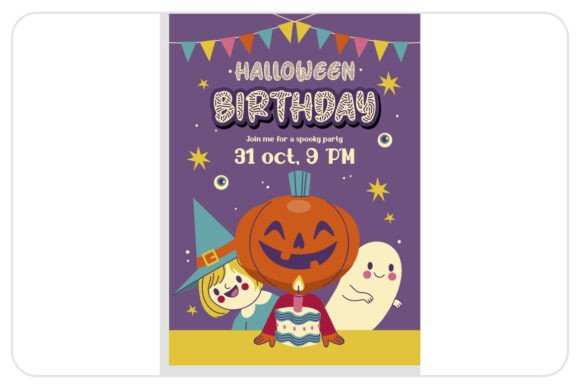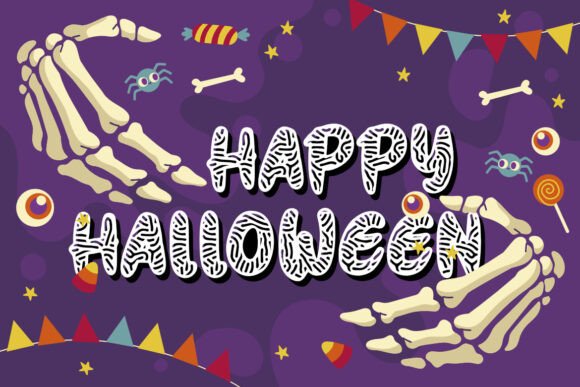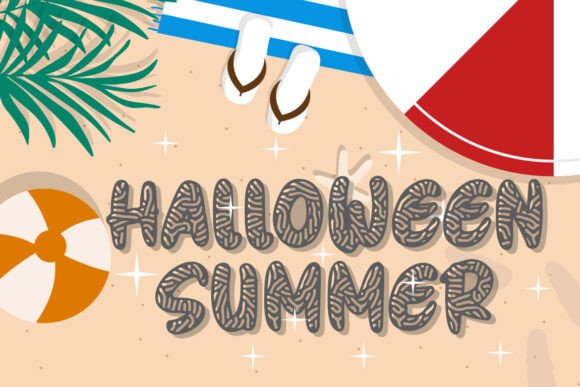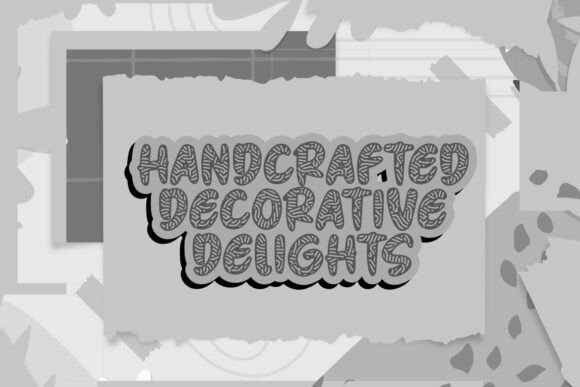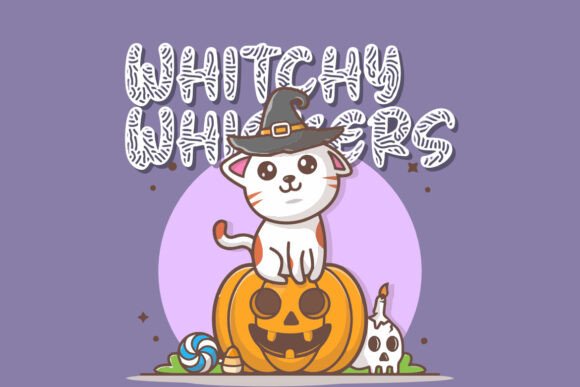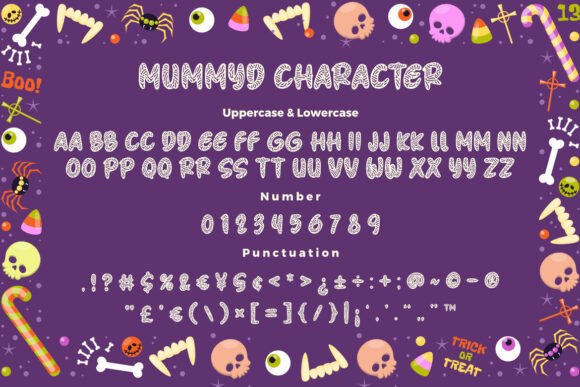
Introduction to Mummyd Font
Imagine you’re brainstorming ideas for a new creative project, and the perfect font is just out of reach. The words “unique” and “eye-catching” are floating in your mind, but you can’t quite put your finger on the perfect combination. That’s when you stumble upon the Mummyd Font, a playful and versatile font that can elevate your design to the next level.
With its high premium quality level, the Mummyd Font is a valuable resource for designers who want to add a touch of personality to their work. Whether you’re creating flyers, quotes, posters, banners, or packaging, this font is sure to make your design stand out. Plus, with its transparent background, you can easily customize it to fit your creative vision.
Key Features of Mummyd Font
- Unique, bold, and elegant font style perfect for various design applications.
- Includes a transparent background, allowing for easy customization and layering.
- Supports various font sizes and resolutions, ideal for print and digital designs.
- Designed to be versatile and adaptable, suitable for a wide range of creative projects.
Honest Review: Mummyd Font
I recently came across the Mummyd Font, a high-quality design resource that caught my attention. As a designer, I’m always on the lookout for unique and creative fonts to elevate my projects.
Here are some things that work well with the Mummyd Font:
- ✨ Unique design: The font has a distinct, playful feel that’s perfect for creative projects.
- ✨ High quality: The font is well-designed and looks great on a variety of backgrounds.
- ⚠️ Limited compatibility: I noticed that the font doesn’t work well with transparent backgrounds, which can be a limitation for designers who want to use it for complex designs.
- ⚠️ Limited character set: The font only includes a limited character set, which may not be sufficient for more extensive design projects.
Overall, I think the Mummyd Font is a great addition to any designer’s toolkit, but it’s essential to be aware of its limitations. With a little creativity and planning, this font can be a valuable resource for your next creative project.
Tips for Getting the Most Out of Mummyd Font
To get the most out of the Mummyd Font, experiment with different font sizes, colors, and combinations to create unique and eye-catching designs.
Common Use Cases for Mummyd Font
The Mummyd Font is commonly used in creative projects such as posters, flyers, brochures, and social media graphics. Its transparent background makes it ideal for overlaying text on images.
Comparison to Mummyd Font: While Mummyd Font has a unique, handwritten style, Open Sans is a more traditional sans-serif font. Open Sans is ideal for designs that require a clean and modern look, whereas Mummyd Font is better suited for designs that require a more creative and artistic touch.
Q: Is the Mummyd Font a high-quality design resource?
Yes, the Mummyd Font is a high-quality design resource that is carefully crafted to provide a unique and professional look for your creative projects. With its clean lines, elegant typography, and transparent background, the Mummyd Font is an excellent choice for designers looking for a reliable and versatile font.